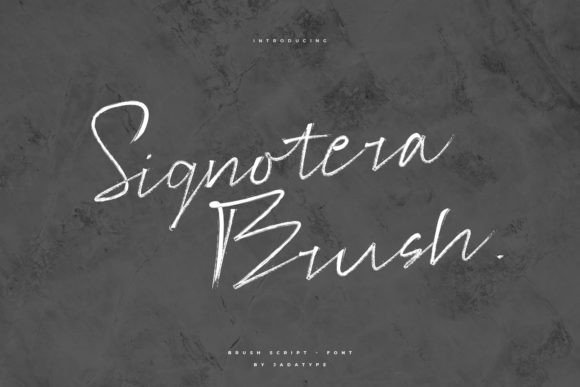
Introducing Signotera Brush Font - The Epitome of Authenticity and Creativity
In the realm of modern typography, Signotera Brush Font stands alone as a true masterpiece. A tantalizing script font, it mirrors the fluidity of a skilled calligrapher's hand, capturing the raw essence of human expression. As you gracefully glide through its elegant curves and flourishes, you'll discover a font that embodies the essence of authenticity and creativity.
With its inherent versatility, Signotera Brush Font effortlessly adapts to a myriad of design projects, adding a touch of enchantment to every piece. Whether you're crafting eye-catching advertisements, captivating social media posts, heartfelt invitations, distinctive branding materials, or personalized products, Signotera Brush Font emerges as the perfect companion. Its allure extends beyond the digital realm, inviting you to infuse physical spaces with its charm, be it handwritten notes, signage, or custom artwork.
As you delve into the world of Signotera Brush Font, you'll encounter a treasure trove of creative possibilities. Unleash your imagination and let the font guide you to create designs that exude sophistication and artistry. Its unique character will elevate your projects, leaving a lasting impression on all who encounter them.
Step into the spotlight and embrace the power of Signotera Brush Font. Let your designs radiate with authenticity and originality. Experience the joy of creating captivating visual masterpieces that resonate with your audience, leaving them spellbound and eager for more.
Don't settle for ordinary; embrace the extraordinary with Signotera Brush Font. Its captivating essence awaits you, ready to transform your creative endeavors into works of art. Embark on this journey of self-expression and let your imagination run wild.